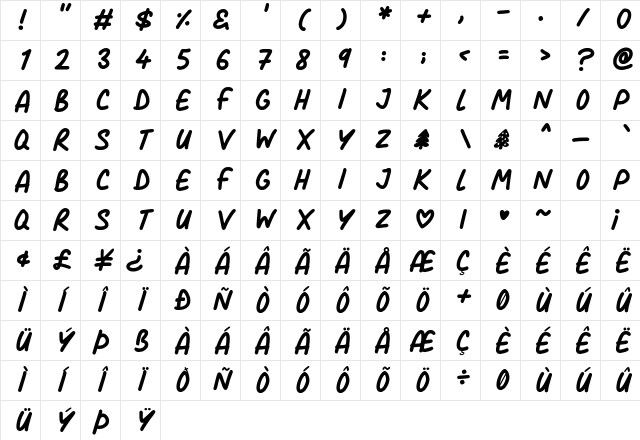
Christmas Cards xxx is a composed and adaptable typeface that performs quietly and consistently across a wide range of design contexts. The slanted form adds forward momentum and visual energy.